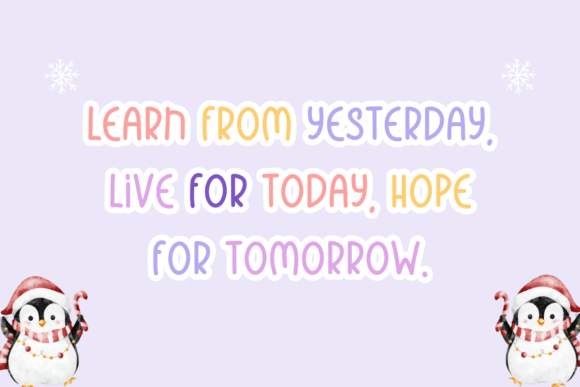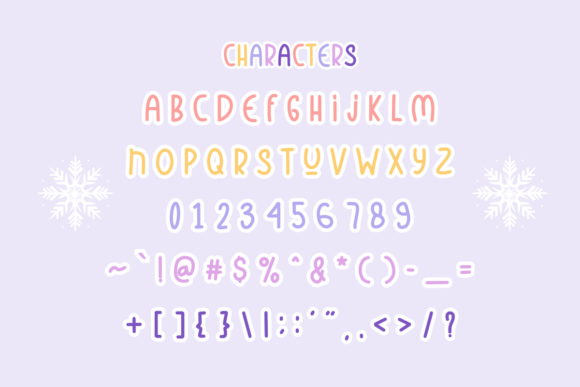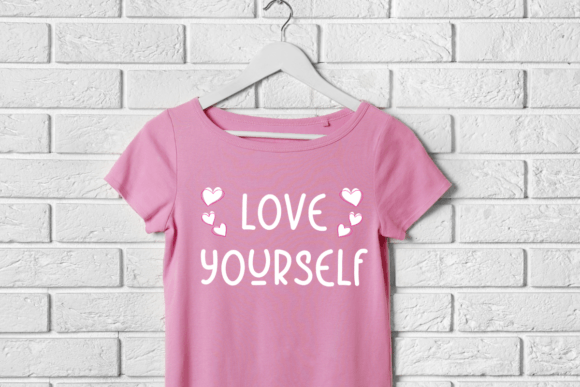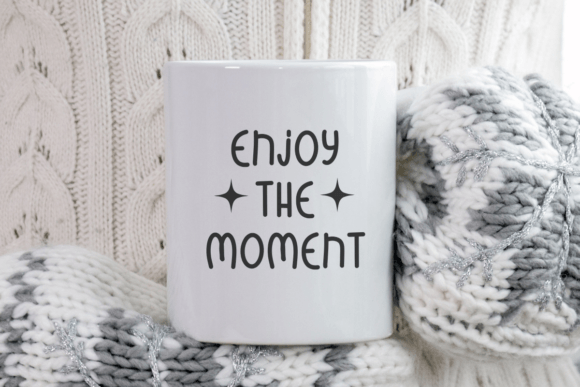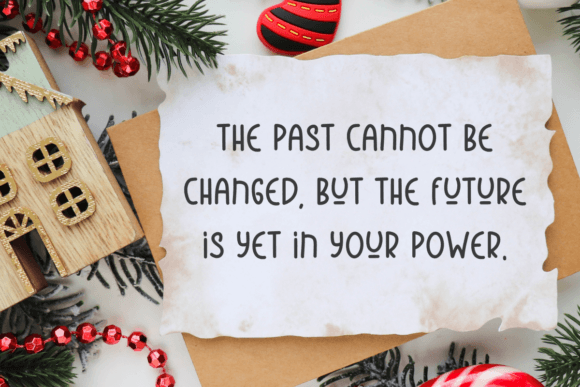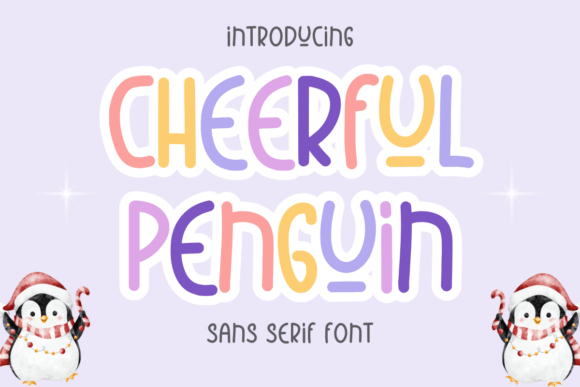
Introducing Cheerful Penguin Font: The Ultimate Choice for Eye-Catching Designs
Are you a designer or crafter looking for a font that can add a touch of fun and personality to your work? Look no further than Cheerful Penguin Font! This sans serif font is the perfect choice for creating eye-catching logos, branding, and quotes that will leave a lasting impression on your audience.
What Makes Cheerful Penguin Font So Special?
Cheerful Penguin Font is more than just a font – it’s a design statement. Every letter has a unique and beautiful touch that will make your design come alive! The font’s sans serif design gives it a modern and clean look, making it perfect for a wide range of design applications, from logos and branding to quotes and social media graphics.
The Benefits of Using Cheerful Penguin Font
So why choose Cheerful Penguin Font for your design projects? Here are just a few benefits of using this amazing font:
- Ease of readability: The sans serif design of Cheerful Penguin Font makes it easy to read, even at small font sizes.
- Uniqueness: Every letter in Cheerful Penguin Font has a unique and beautiful touch, setting it apart from more traditional fonts.
- Versatility: Cheerful Penguin Font can be used for a wide range of design applications, from logos and branding to quotes and social media graphics.
- Fun and playful: Cheerful Penguin Font is the perfect choice for designs that require a touch of fun and personality.
Cheerful Penguin Font is a must-have for designers and crafters who want to add a touch of personality to their work. Whether you’re creating logos, branding, or social media graphics, this font is sure to make your designs stand out. Here are just a few ways you can use Cheerful Penguin Font:
- Logos and branding: Use Cheerful Penguin Font to create eye-catching logos and branding that will leave a lasting impression on your audience.
- Quotes and social media graphics: Add a touch of fun and personality to your quotes and social media graphics with Cheerful Penguin Font.
- Crafting projects: Use Cheerful Penguin Font to add a personal touch to your crafting projects, such as handmade cards and gift tags.
Tips for Using Cheerful Penguin Font
Here are a few tips for getting the most out of Cheerful Penguin Font:
- Experiment with font sizes: Cheerful Penguin Font looks great at a wide range of font sizes, so don’t be afraid to experiment to find the perfect size for your design.
- Pair with other fonts: Cheerful Penguin Font pairs well with a wide range of other fonts, so try pairing it with different fonts to create a unique look.
- Use it consistently: Use Cheerful Penguin Font consistently throughout your design to create a cohesive look.
Cheerful Penguin Font is a fun and playful sans serif font that’s perfect for designers and crafters who want to add a touch of personality to their work. With its unique and beautiful touch, ease of readability, and versatility, Cheerful Penguin Font is the ultimate choice for creating eye-catching logos, branding, and quotes. So why wait? Download Cheerful Penguin Font today and start creating designs that will leave a lasting impression on your audience!